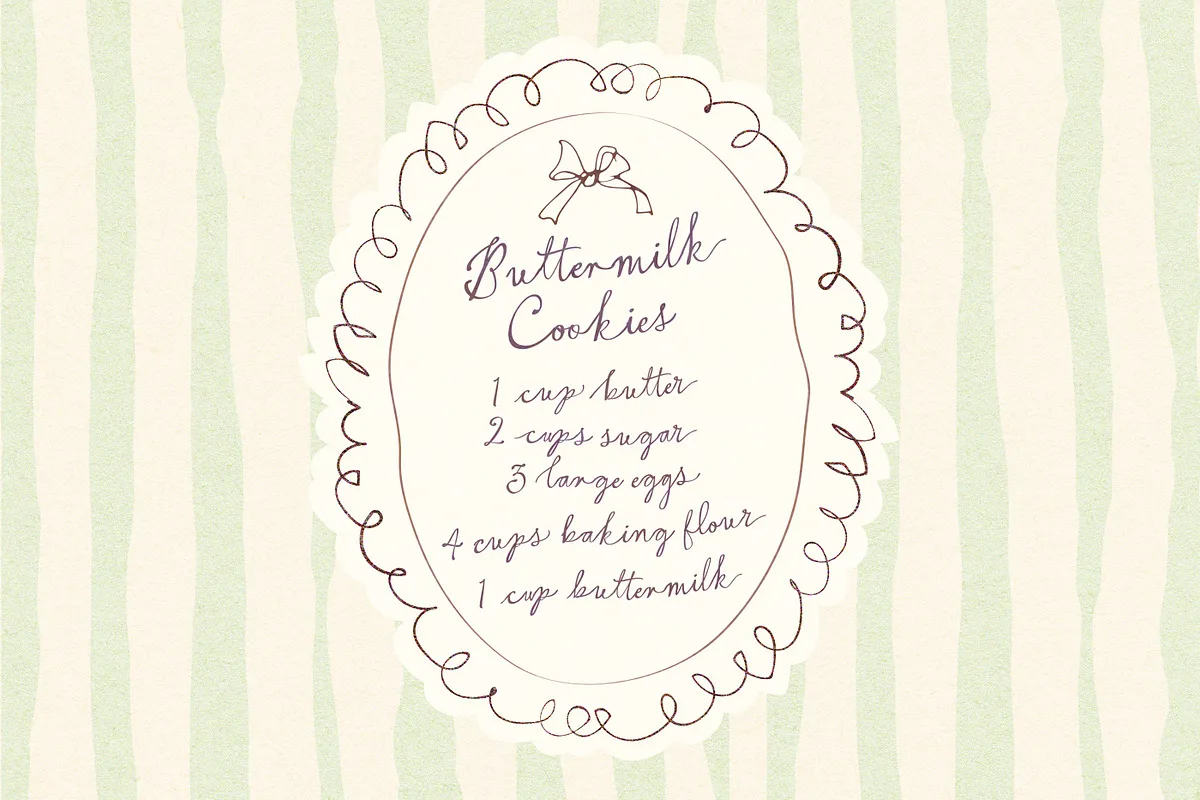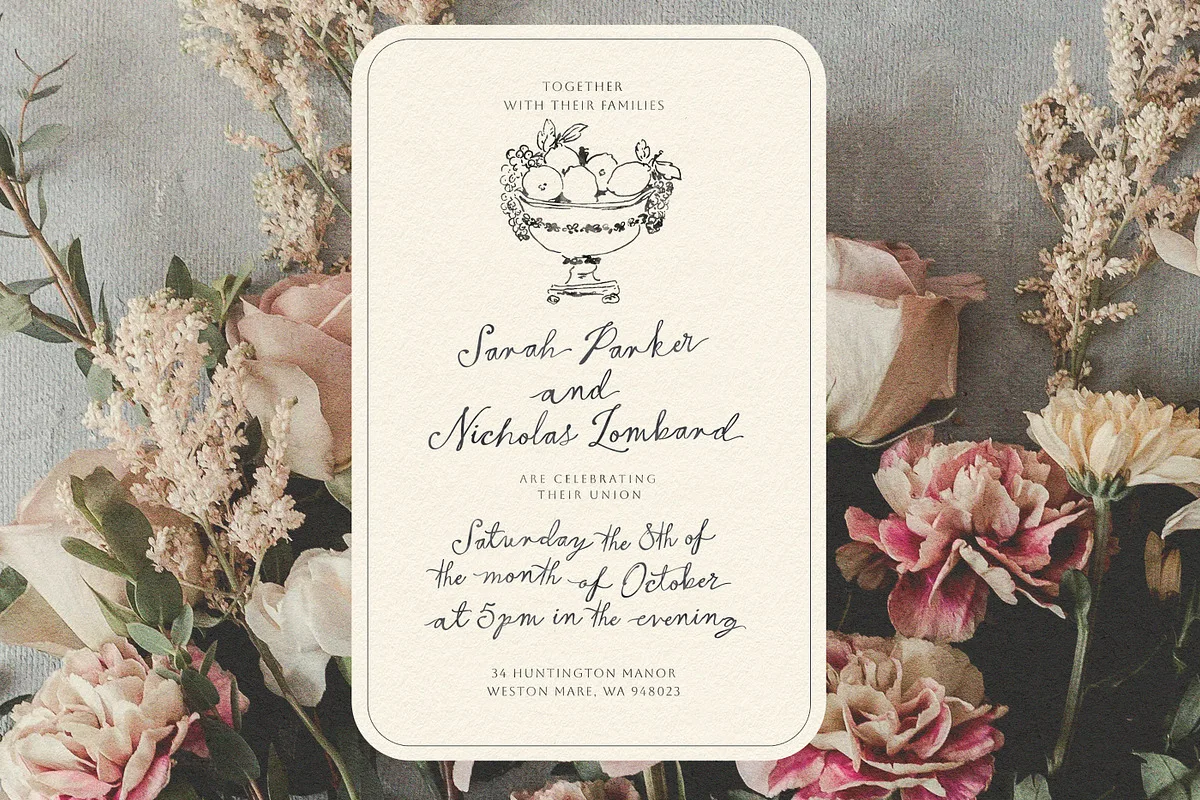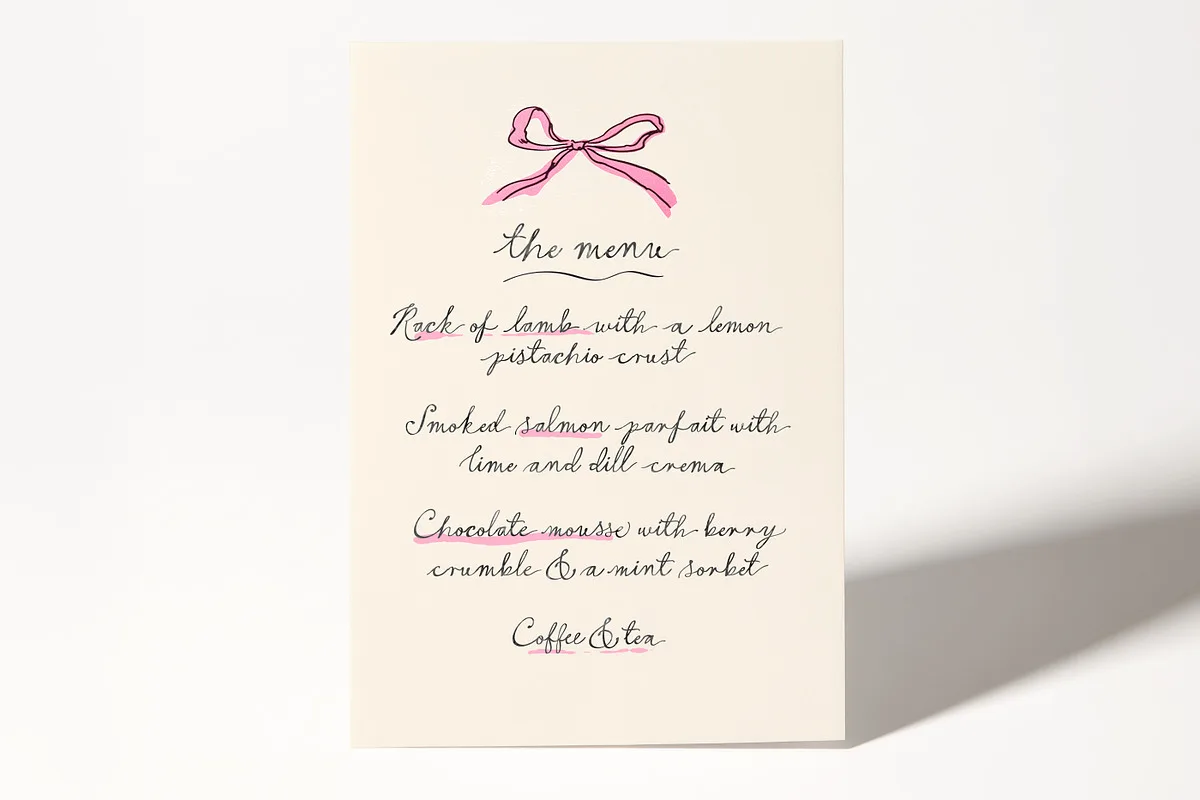
Add a touch of delightful flounce and fancy with Montpellier Script! A lighthearted calligraphy script designed to look naturally written with an air of posh playfulness!
To add to its unique charm , you’ll find a large selection of flourished end and beginning letter alternates in its Opentype features. There is also a good selection of Ligatures ( special letters that are combined to look more natural) and general letter alternates to choose from ( see preview image for all characters available).
Perfect for Greeting cards, Invitations, Whimsical prints and posters, Flouncy wedding branding, Illustrative works, and any project or brand that needs a playfully chic touch!